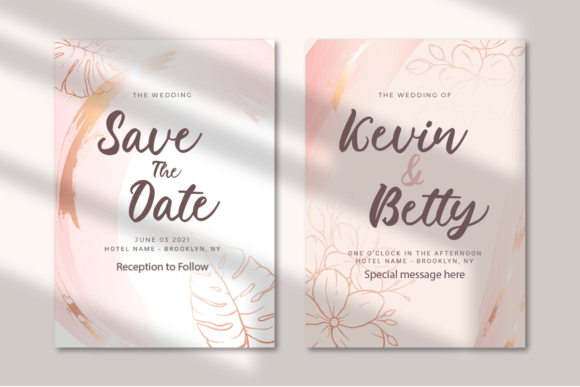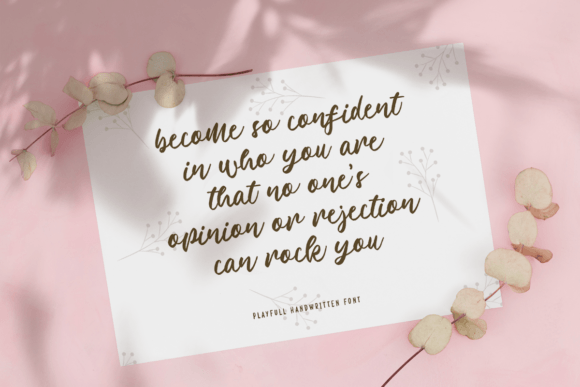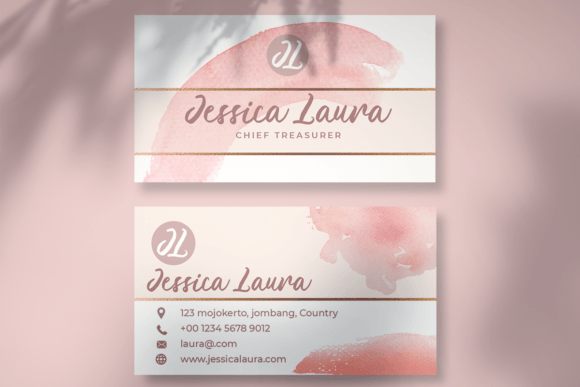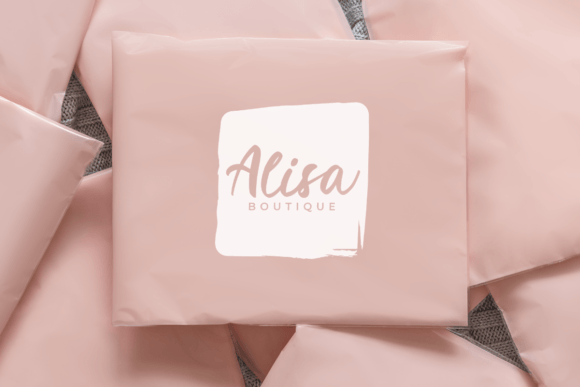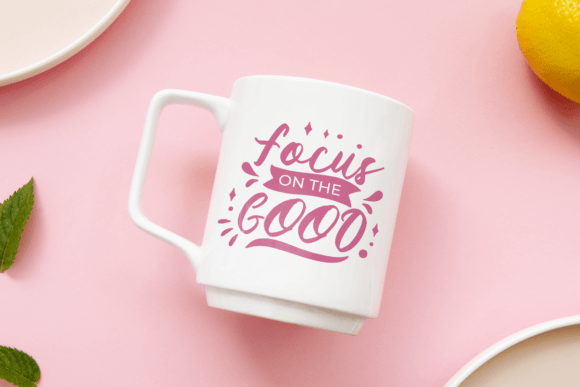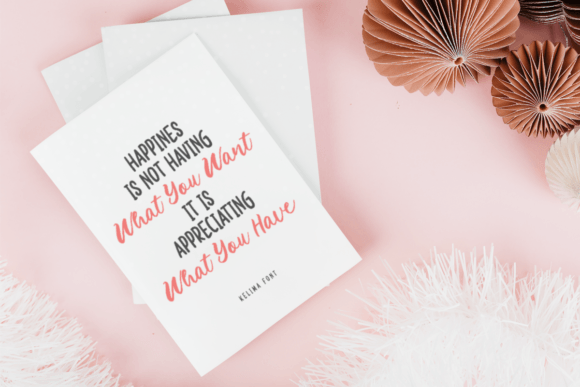
Introduction to Kelima Font
As a designer, there’s nothing quite like the thrill of bringing a creative project to life. You spend hours pouring over sketches, experimenting with colors, and perfecting the layout, only to have it all come together in a beautiful, cohesive piece. But sometimes, the key to making it truly special lies in the smallest details – like the font you choose. That’s where the Kelima Font comes in.
This lovely and timeless handwritten font is more than just a pretty face; it’s a game-changer for designers looking to add a touch of elegance and sophistication to their work. With its unique, beautiful touch, the Kelima Font is the perfect choice for creating eye-catching logos, branding, and quotes that are sure to leave a lasting impression.
Key Features of Kelima Font
- Features a unique and modern design style, ideal for use in digital and print media.
Honest Review: Kelima Font
After exploring the Kelima Font, I was impressed by its unique and sophisticated design. The font features a transparent background, making it perfect for overlaying text on images or backgrounds. I also appreciated the wide range of styles and weights available, which allowed me to experiment with different looks and feels.
- Unique and sophisticated design
- Transparent background for easy overlaying
- Wide range of styles and weights available
- May not be suitable for all design projects due to its elegant and sophisticated design
- Some users may find the font too ornate or complex
Tips for Getting the Most Out of Kelima Font
For best results, pair the Kelima Font with a transparent background to create a striking design. You can also experiment with different font sizes and styles to add visual interest to your project.
Common Use Cases for Kelima Font
The Kelima Font is ideal for creative projects that require a unique and high-quality design. Some common use cases include designing branding materials, creating social media graphics, or developing presentations and reports.